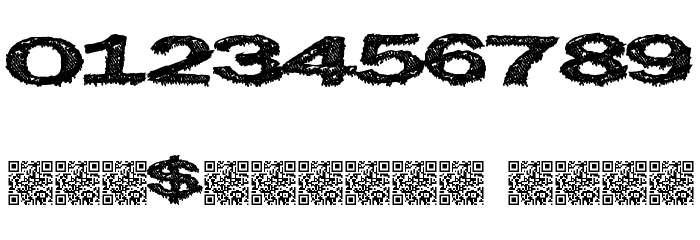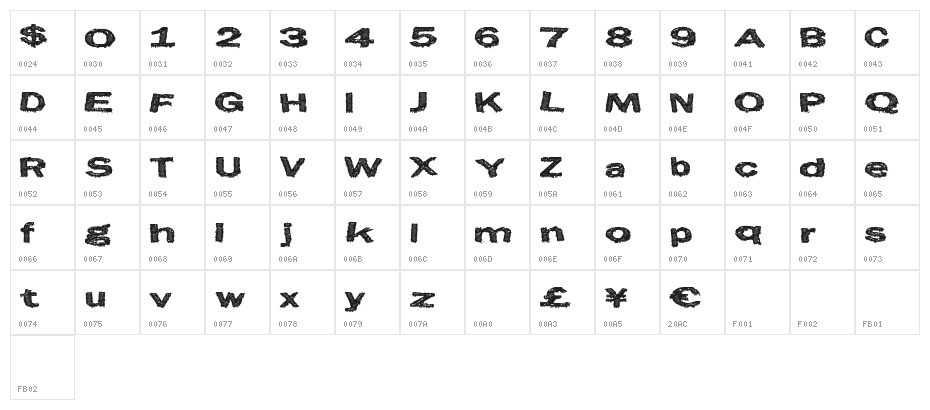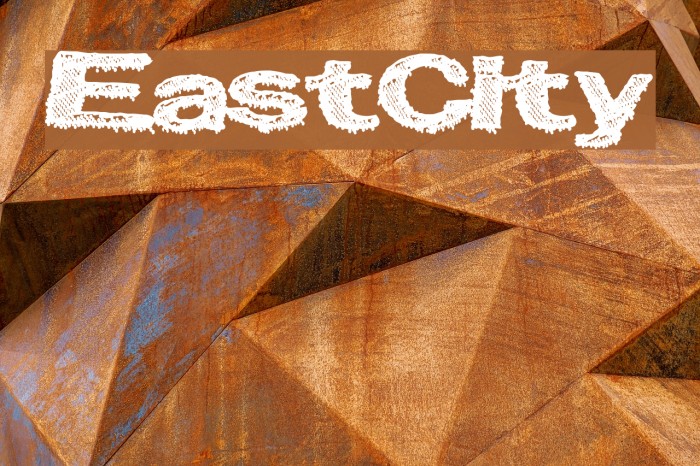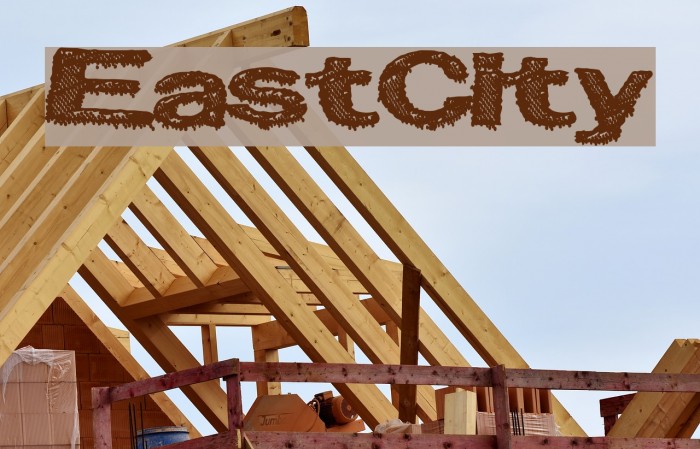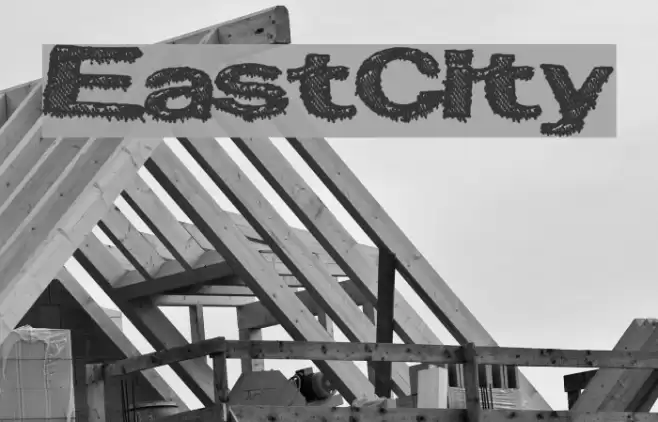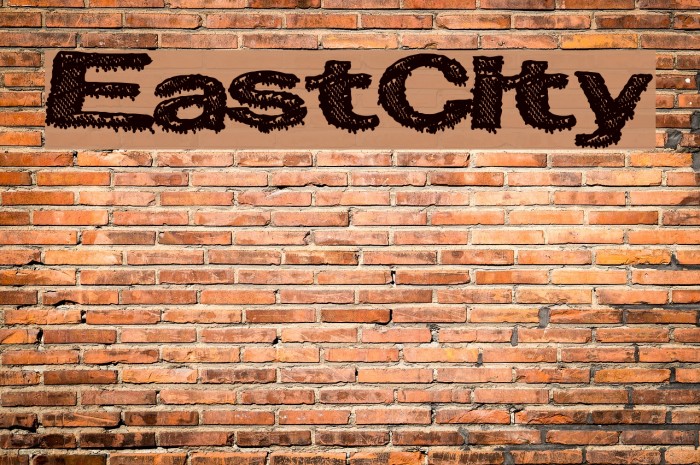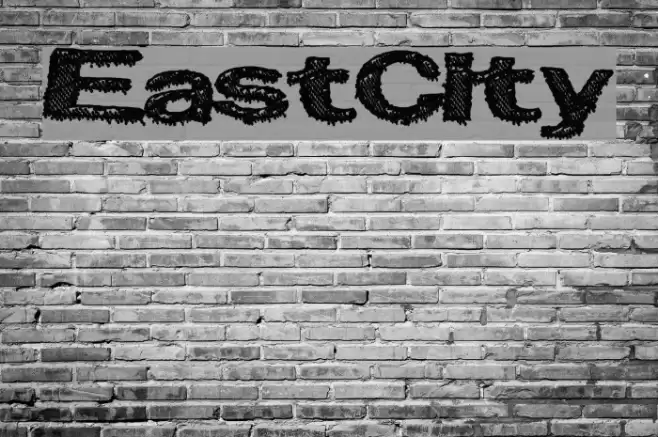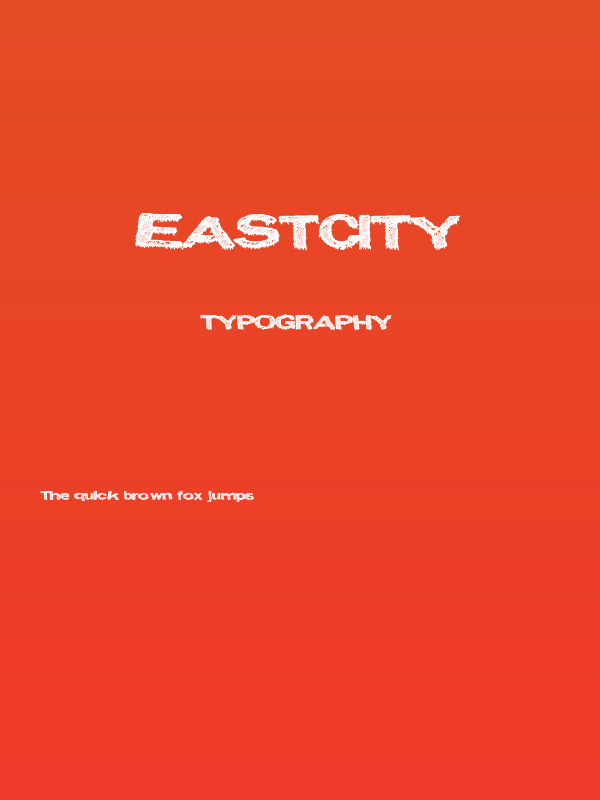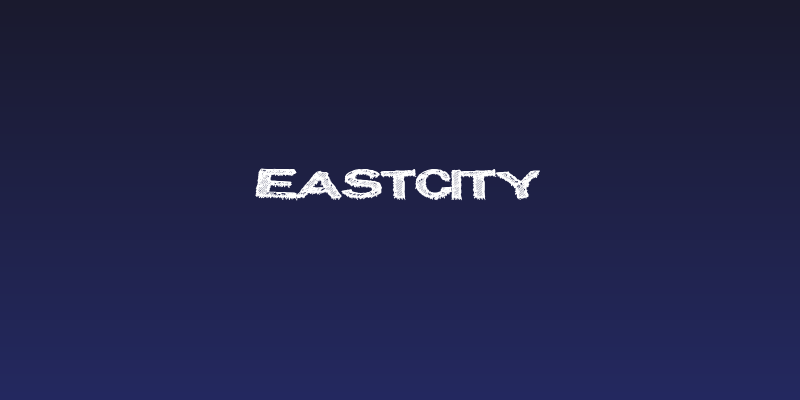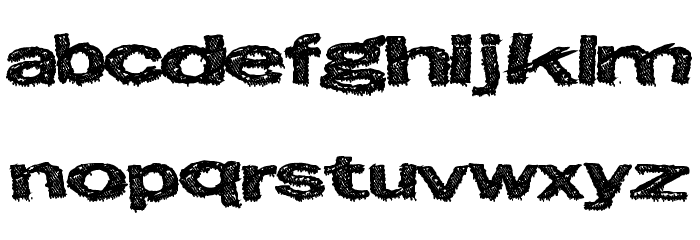
EastCity Font
EastCity Description
This font features a bold and textured style, reminiscent of a distressed or grunge aesthetic. The characters are heavily stylized with a rough, uneven texture that gives them a dynamic and edgy appearance. The uppercase and lowercase letters maintain a consistent design, with each character displaying a unique, hand-drawn quality. The numbers and special characters follow the same design principles, ensuring a cohesive look across all elements. This font is ideal for projects that require a bold statement or a creative, artistic touch.
EASTCITY UPPERCASE
EASTCITY LOWERCASE
EASTCITY OTHER CHARS
| Proposed Projects | Ideal for album covers, posters, streetwear branding, or any project needing an edgy, artistic flair. |